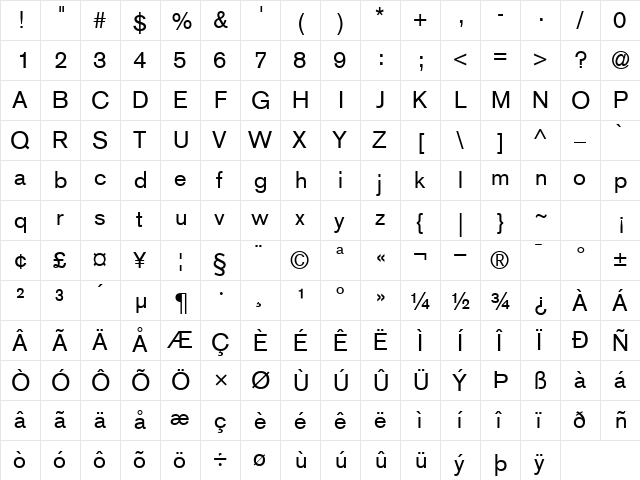
AkzidenzGroteskCE Roman Font Preview
AkzidenzGroteskCE Roman
Design Context for AkzidenzGroteskCE Typeface
AkzidenzGroteskCE takes a clean, functional approach — its unadorned letterforms prioritise legibility and work reliably across screen and print environments.
Font Pairing: Works well alongside a characterful serif or display font that can carry the expressive load while AkzidenzGroteskCE handles the functional copy.
Pro Tip: Pair AkzidenzGroteskCE with a display or serif font for headlines — its neutral character makes it an excellent supporting player in complex typographic systems.